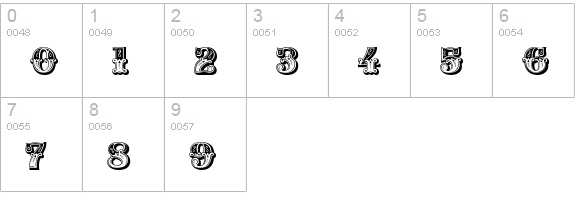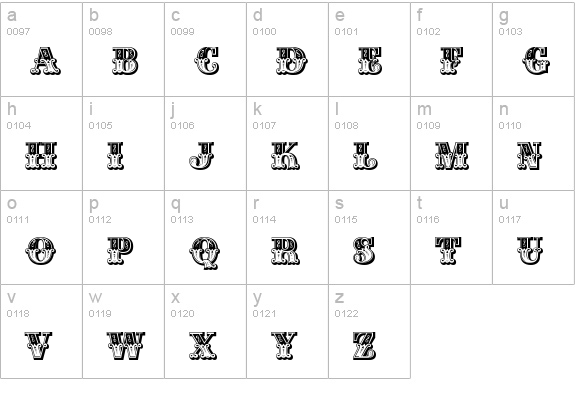
Gille Classic Font Details
Gille Classic font is a timeless and elegant typeface that exudes sophistication and charm. With its sleek lines and graceful curves, this font is perfect for adding a touch of class to any project. Whether you're designing a logo, creating invitations, or crafting a poster, Gille Classic font is sure to make a lasting impression. The best part? Gille Classic font is completely free to download at FontsMarket.com. This means you can enjoy all the beauty and versatility of this stunning font without having to spend a penny. So why wait? Download Gille Classic font today and elevate your designs with effortless style and grace.